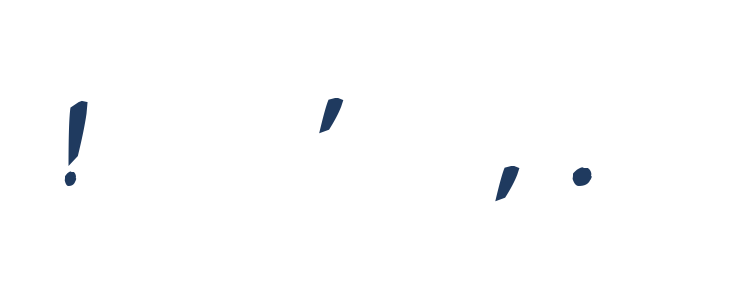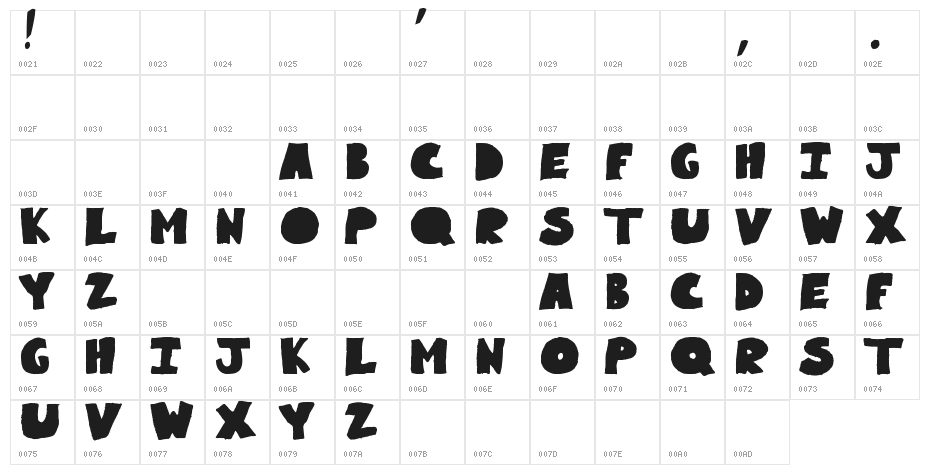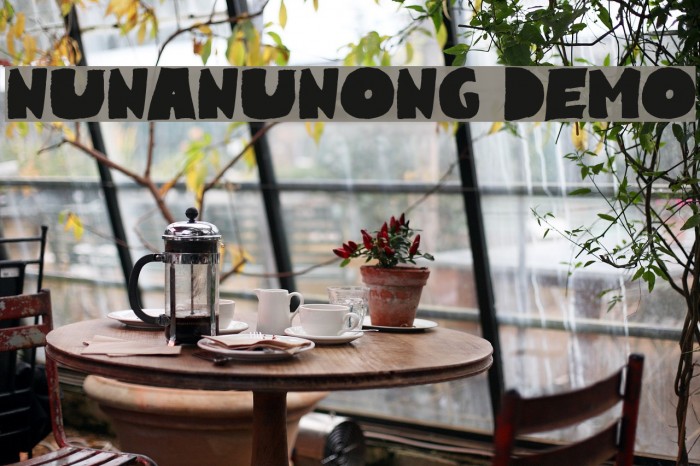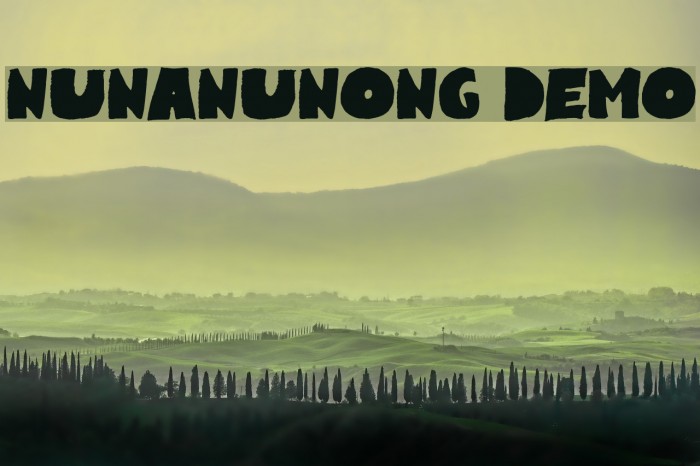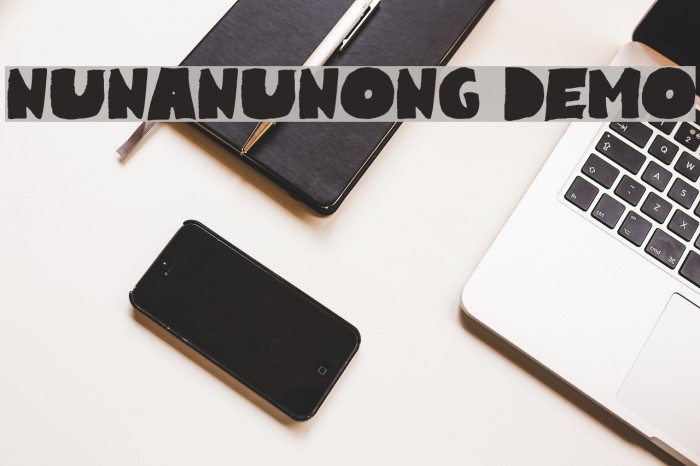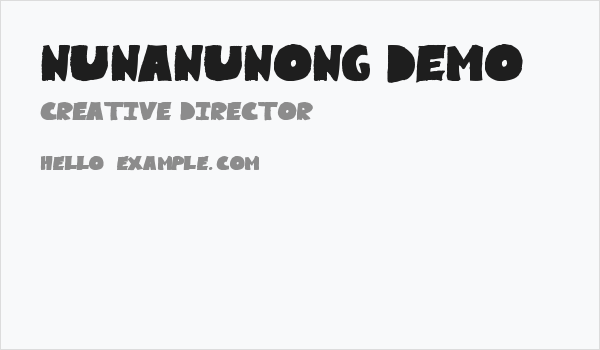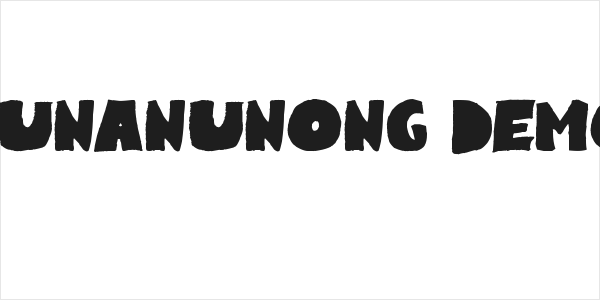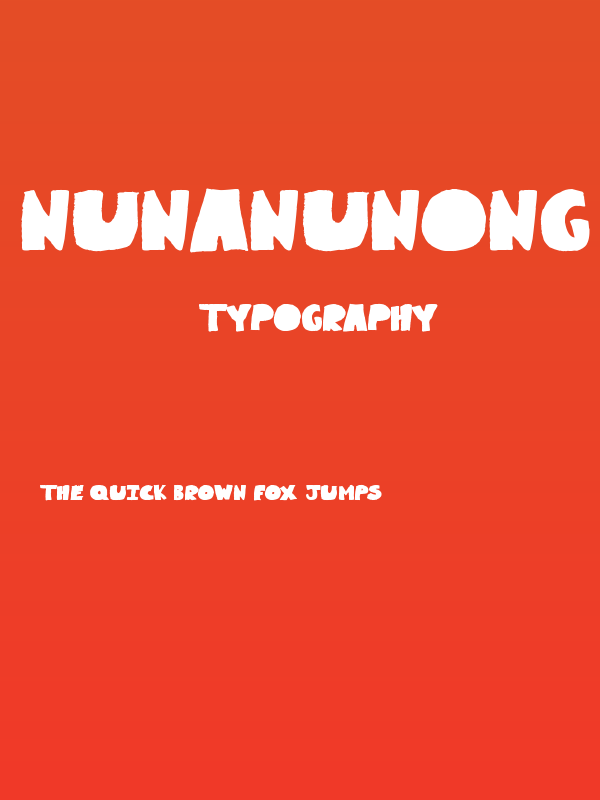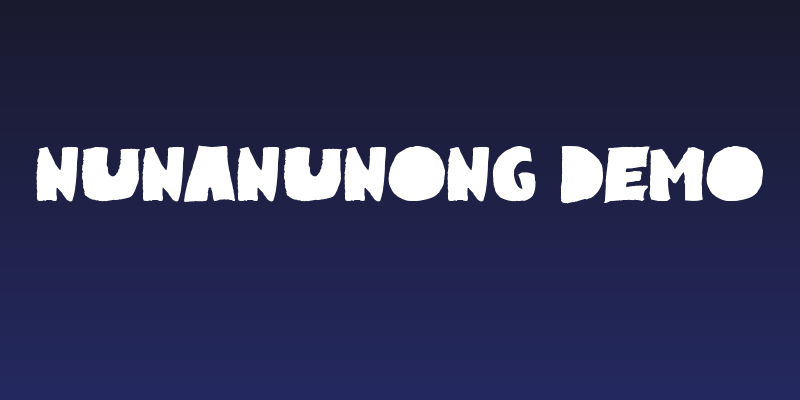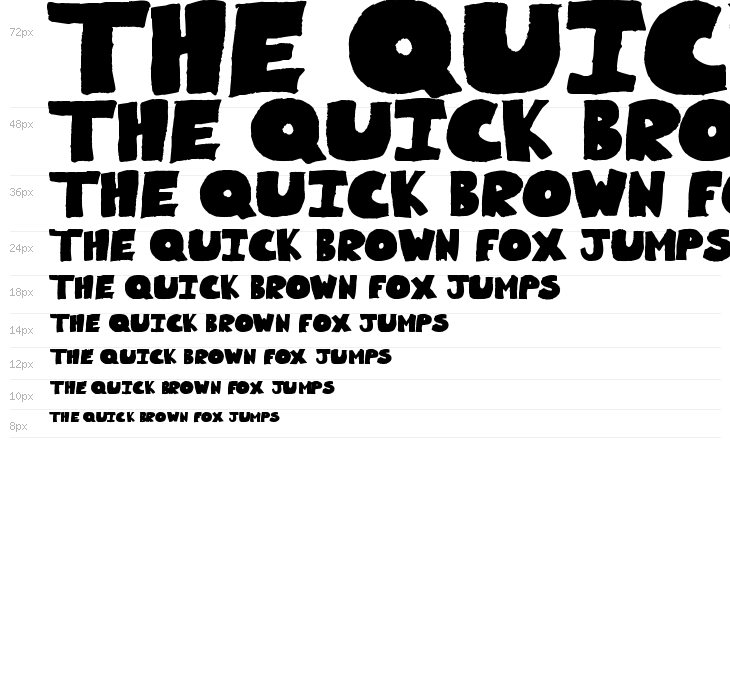
Nunanunong Demo Font
Nunanunong Demo Description
This font features a bold and playful style with a hand-drawn appearance. The characters are thick and slightly irregular, giving them a casual and informal look. The strokes are uneven, adding to the whimsical and artistic feel of the font. The uppercase letters are prominent and eye-catching, making them suitable for attention-grabbing headlines or creative projects. The overall design is reminiscent of graffiti or street art, with a modern twist. The font's unique character shapes and bold presence make it ideal for projects that require a fun and energetic vibe.
Proposed ProjectsIdeal for posters, logos, children's books, and creative branding projects.